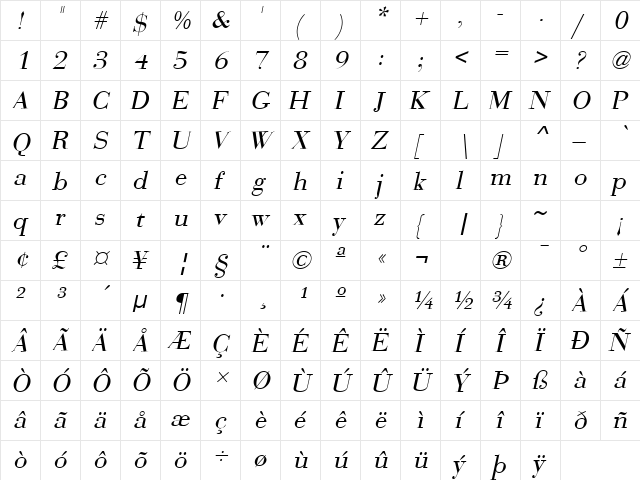
Sweez Italic
Design Context for Sweez Typeface
Sweez is a composed and adaptable typeface that performs quietly and consistently across a wide range of design contexts. The dynamic lean of this cut emphasises speed and emphasis in any layout.
Pro Tip: Try Sweez for annotation and caption copy alongside an upright companion — the contrast in angle creates a dynamic but ordered typographic system.